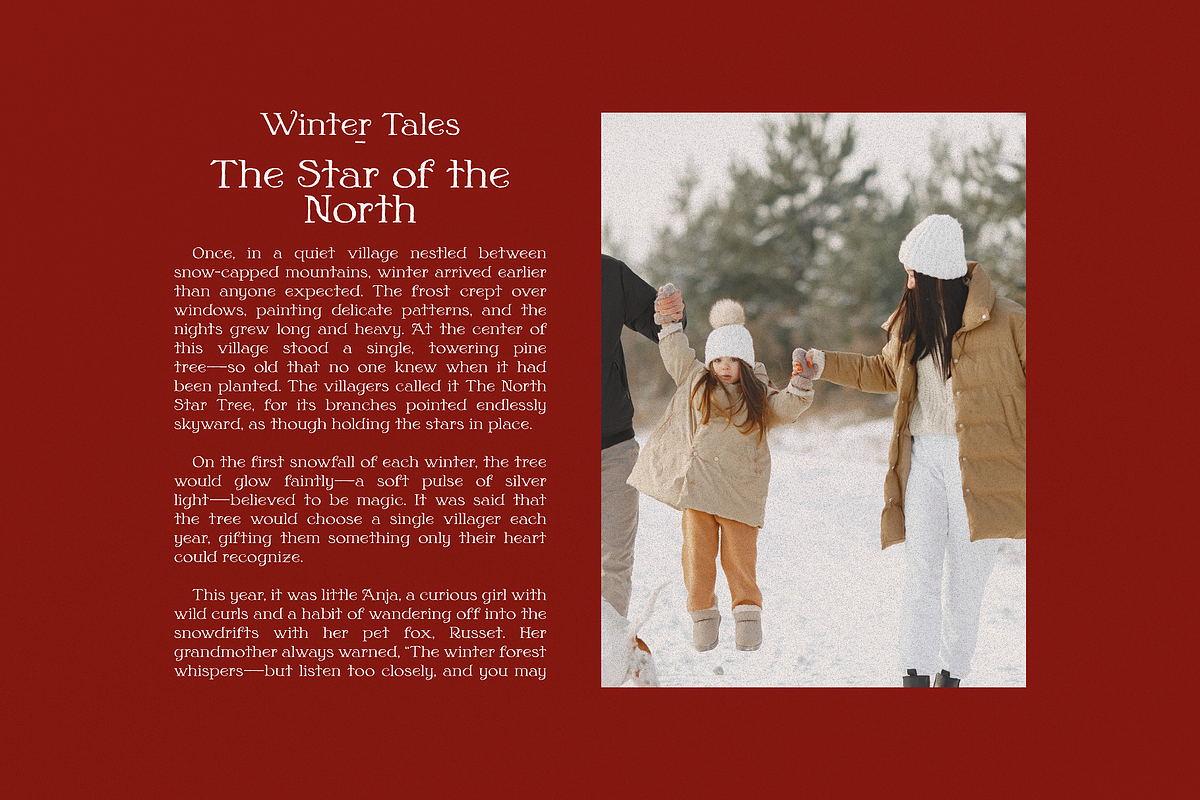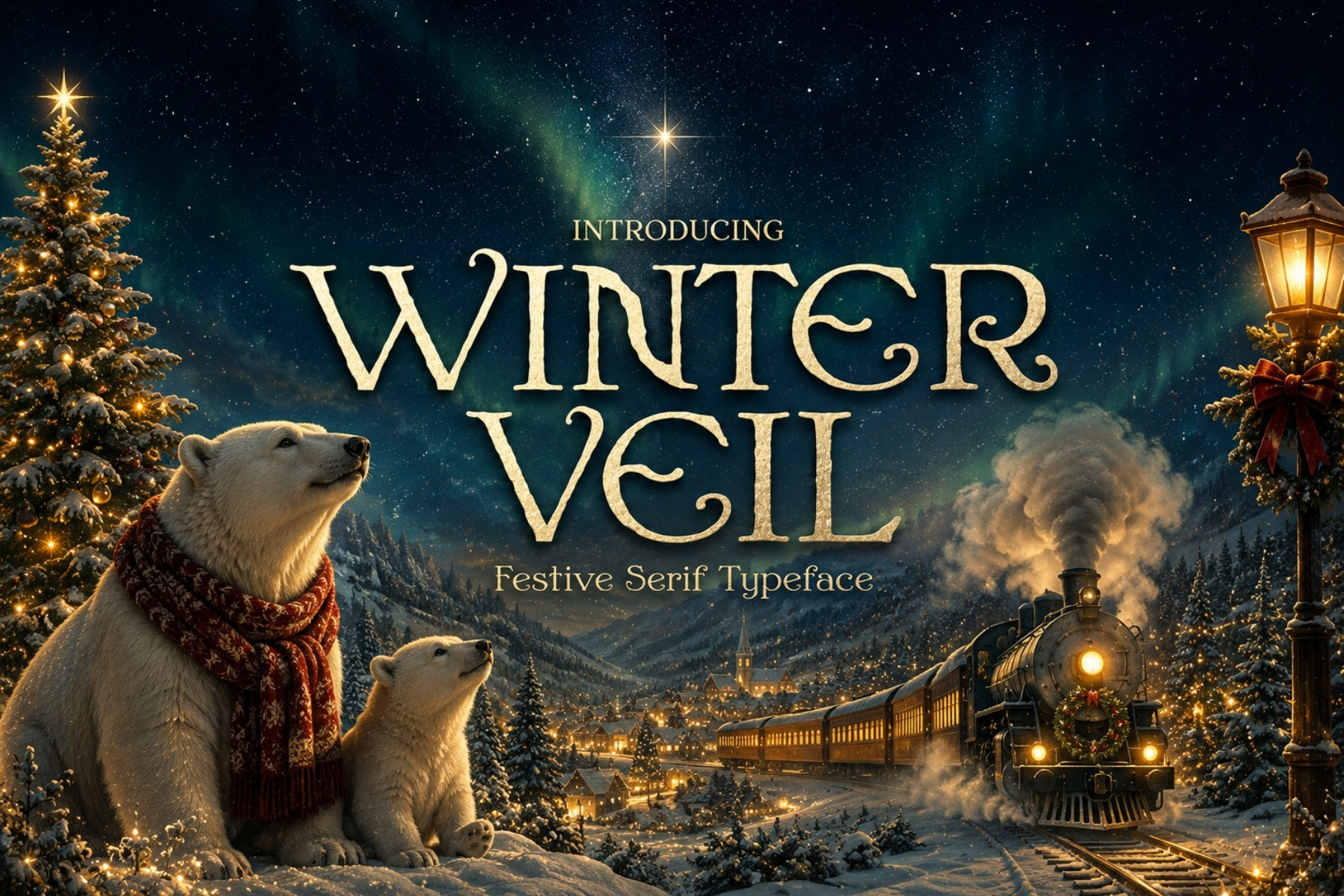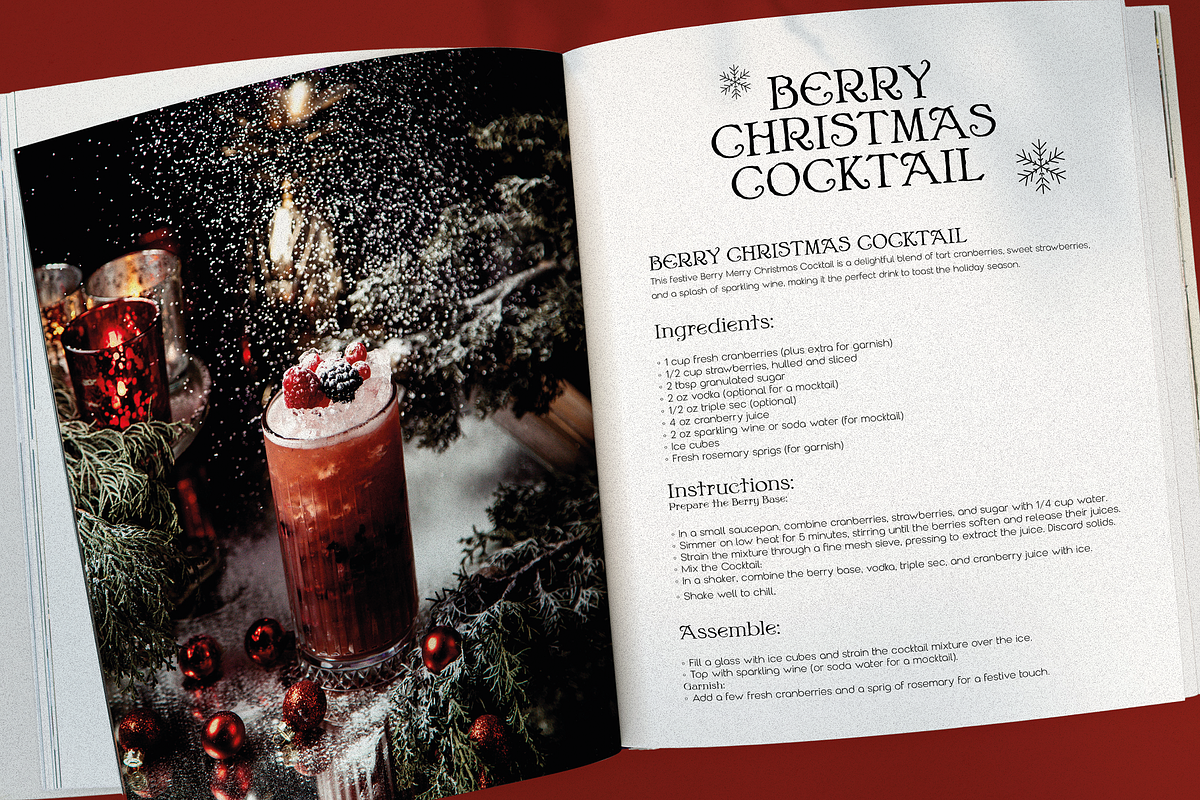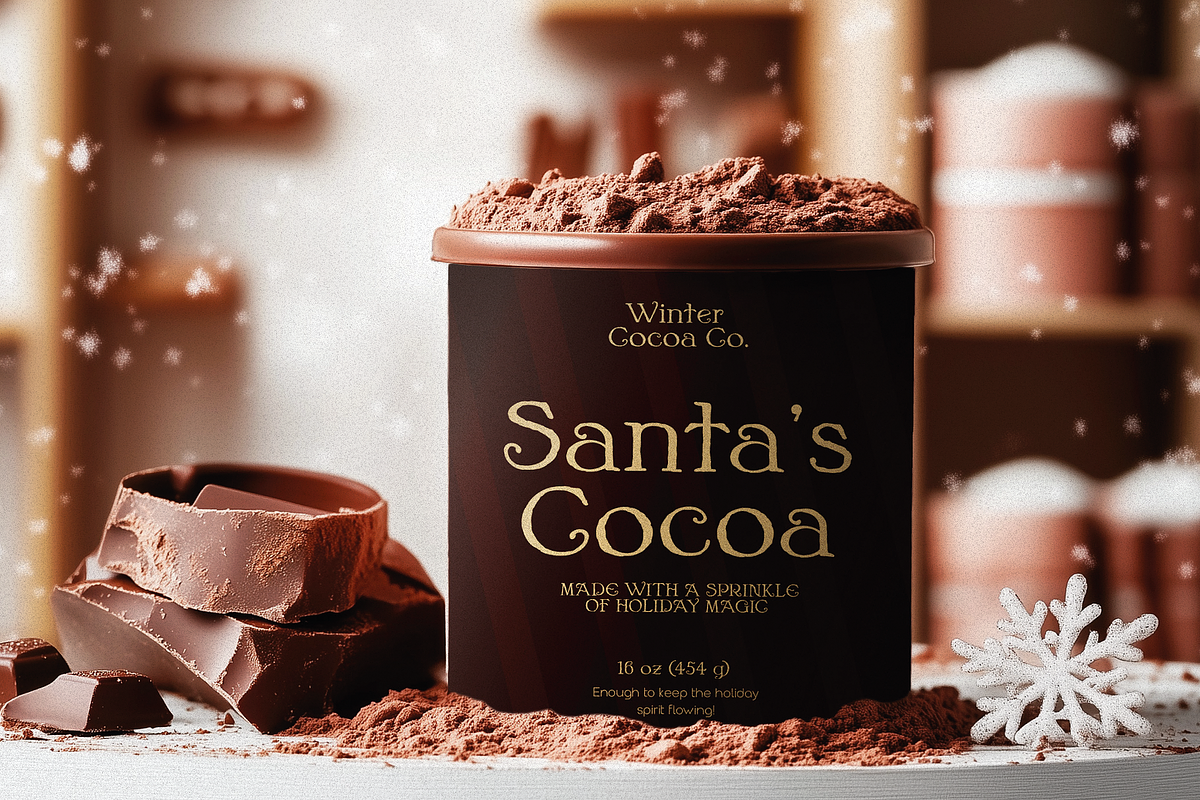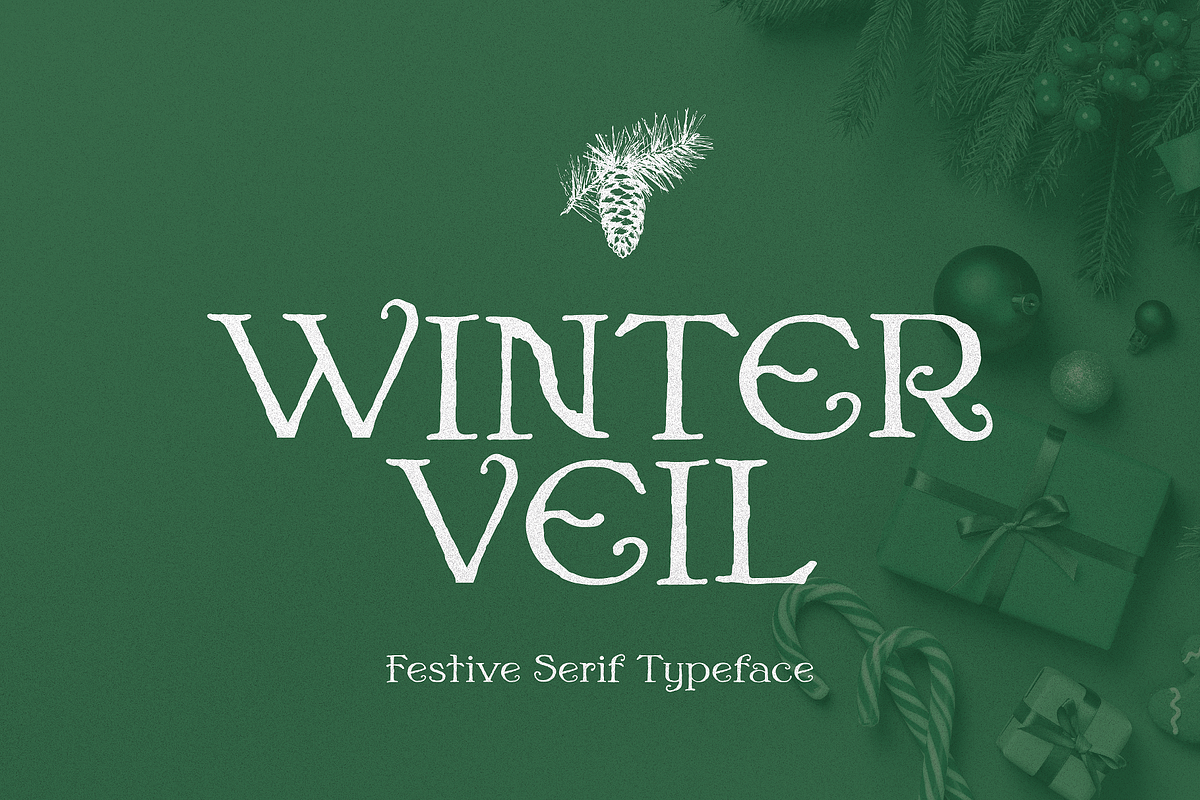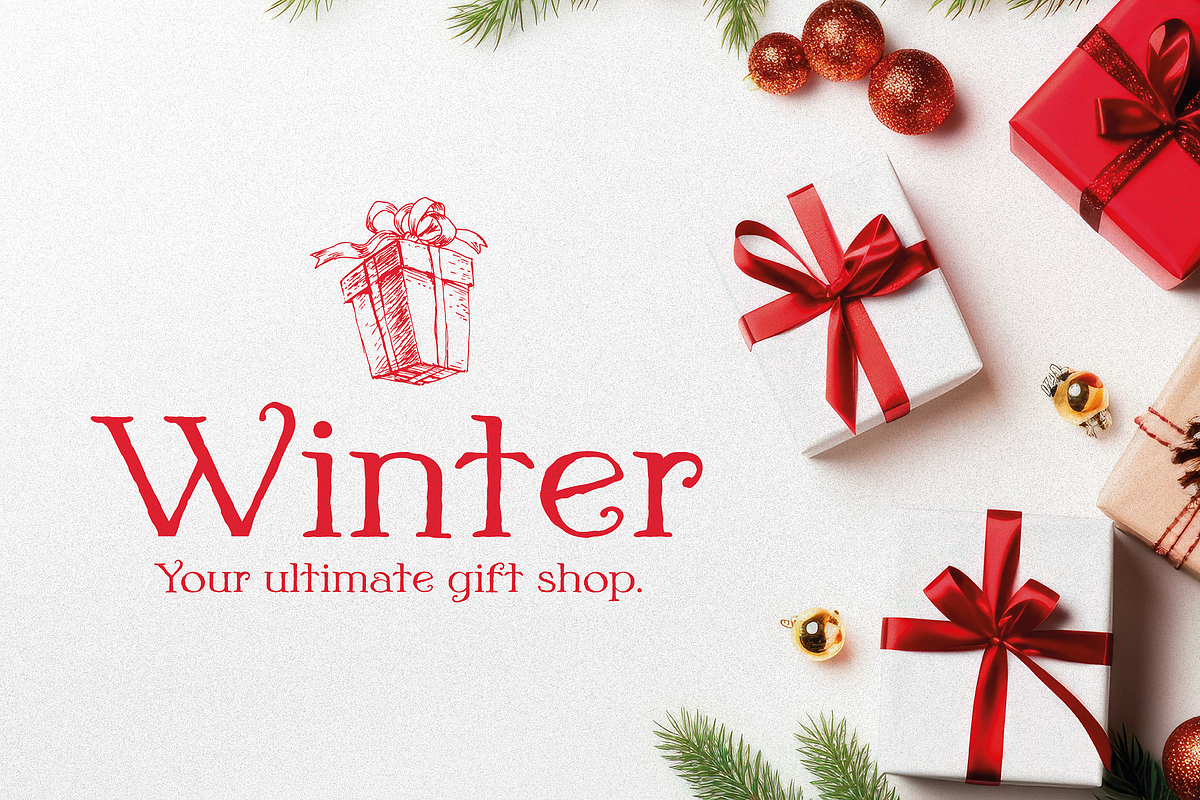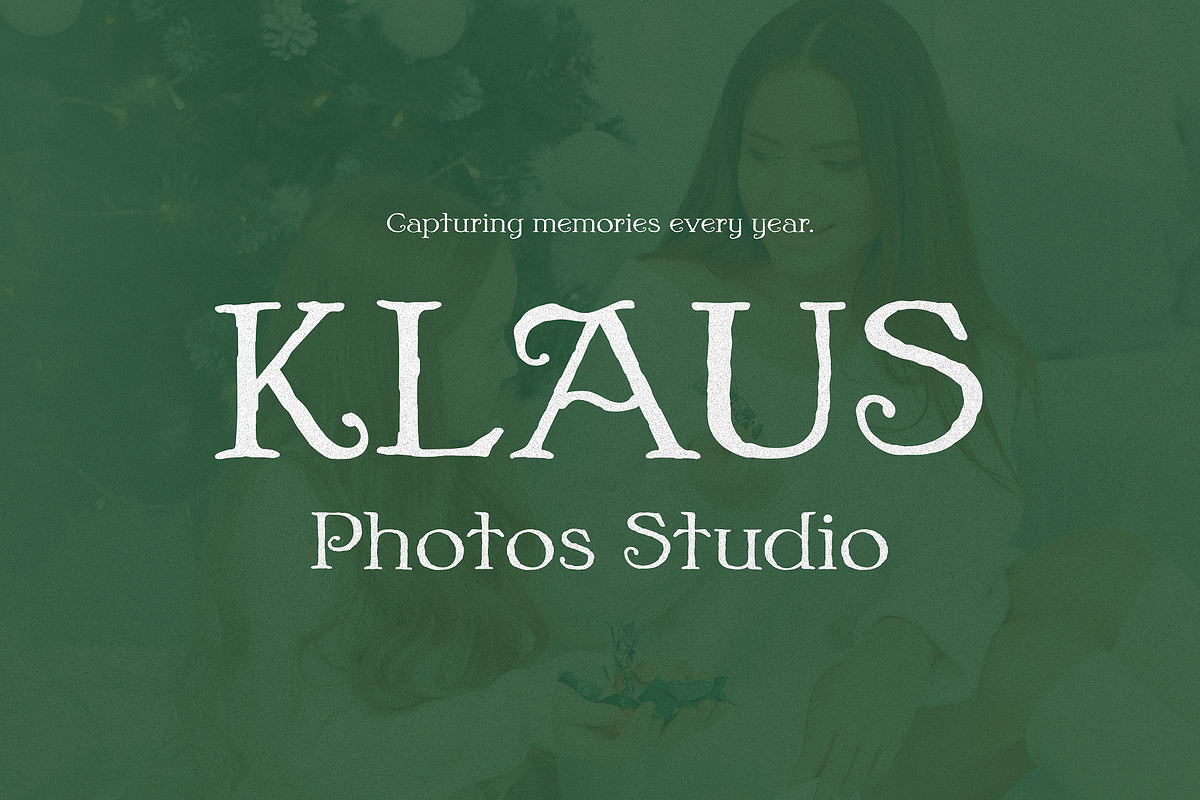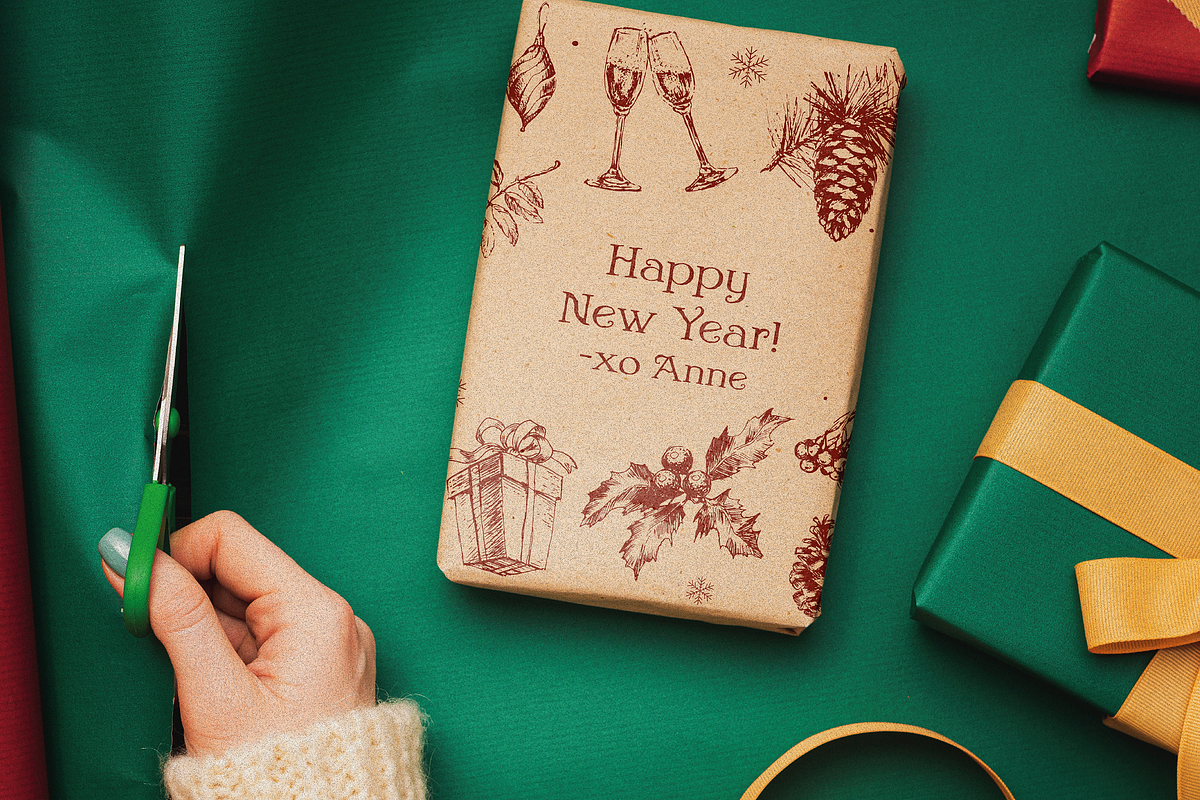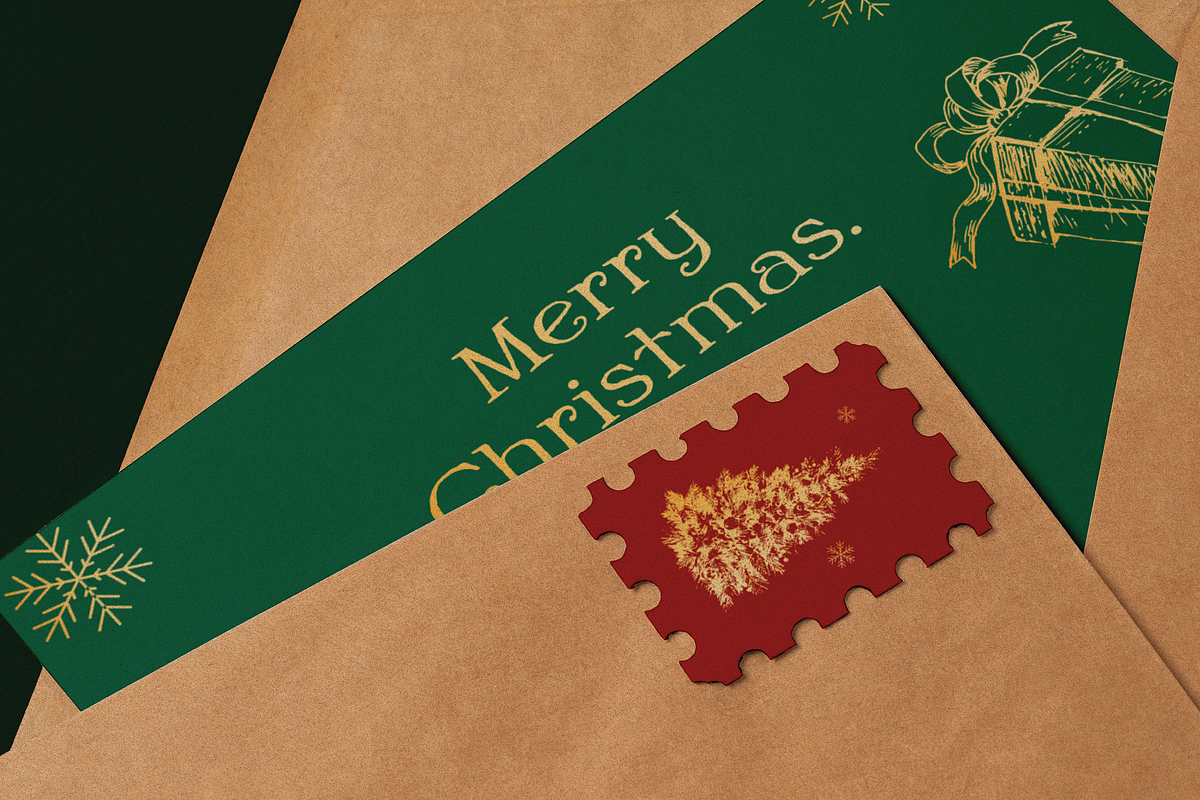
Winter Veil - Festive Typeface
Wrap your designs in the warmth and charm of the season with Winter Veil, a festive Christmas-inspired typeface with an authentic hand-drawn look. Featuring rough edges and a natural, hand-lettered aesthetic, this font captures the cozy spirit of the holidays, making it the perfect choice for spreading cheer and joy.
Whether you're designing for Christmas cards or holiday branding, Winter Veil is ideal for:
Festive greeting cards
Holiday party invitations
Gift tags and wrapping paper
Seasonal marketing and branding
Decorative posters and signage
With its whimsical charm and handcrafted appeal, Winter Veil brings the magic of the holidays to life in every letter. Let this enchanting typeface light up your designs with the wonder and warmth of the winter season.
Winter Veil—the perfect touch for creating holiday memories!